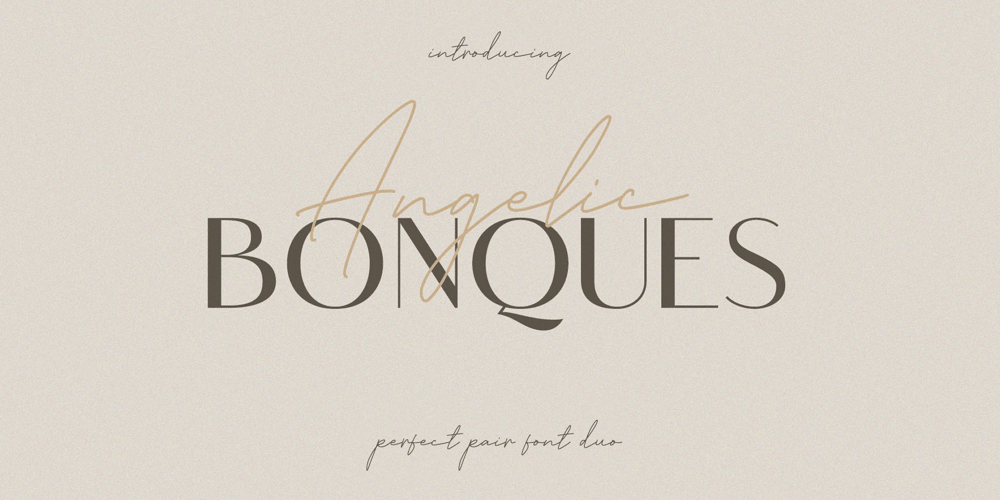
Angelic Bonques
Angelic Bonques font
Angelic Bonques Font Family was designed by Trio Nazzar Saputra, Wahyu Hadi Yuana and published by Craft Supply Co. Angelic Bonques contains 3 styles and family package options. Angelic Bonques – Perfect Pair Font Duo is a combination of an elegant sans serif font & beauty handwritten script font based on the expression of real handwriting. Angelic Bonques – Perfect Pair Font Duo will work perfectly for fashion, e-commerce brands, trend blogs, wedding boutiques or any business that wants to appear upscale and chic.